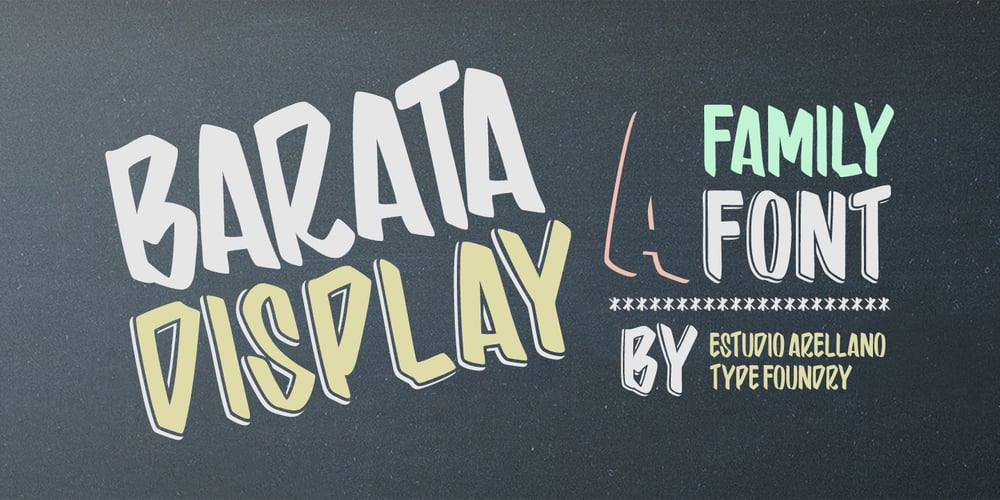
Barata Display Font Family was designed by Enrique Arellano and published by Estudio Arellano Type Foundry. Barata Display contains 3 styles and family package options. Barata Display is an all caps script family font inspired by the street vendors and informal commerce in Latin countries. A condensed defined and thick stroke evokes the chalk signs that are made in “tianguis”, markets, greengrocers, barbecues and flea markets from Los Angeles to Buenos Aires. It is a typeface that “SCREAM” buy me, save money, discounted, almost Free, opportunity!. What distinguishes the New Barata Display from Estudio Arellano Type Foundry is the expressive power of its structure. The Alphabet is built on the geometric principle of free traces from freehand writing. Composed of 236 capital Roman characters, Barata Display includes most common accents and diacritics. Barata Display can be used in any kind of commercial or personal promotion, in graphic design, web, print, animation, etc. Perfect for price labels, tags and other applications such as posters and t-shirts. It is a typeface ideal for headlines and Lettering.